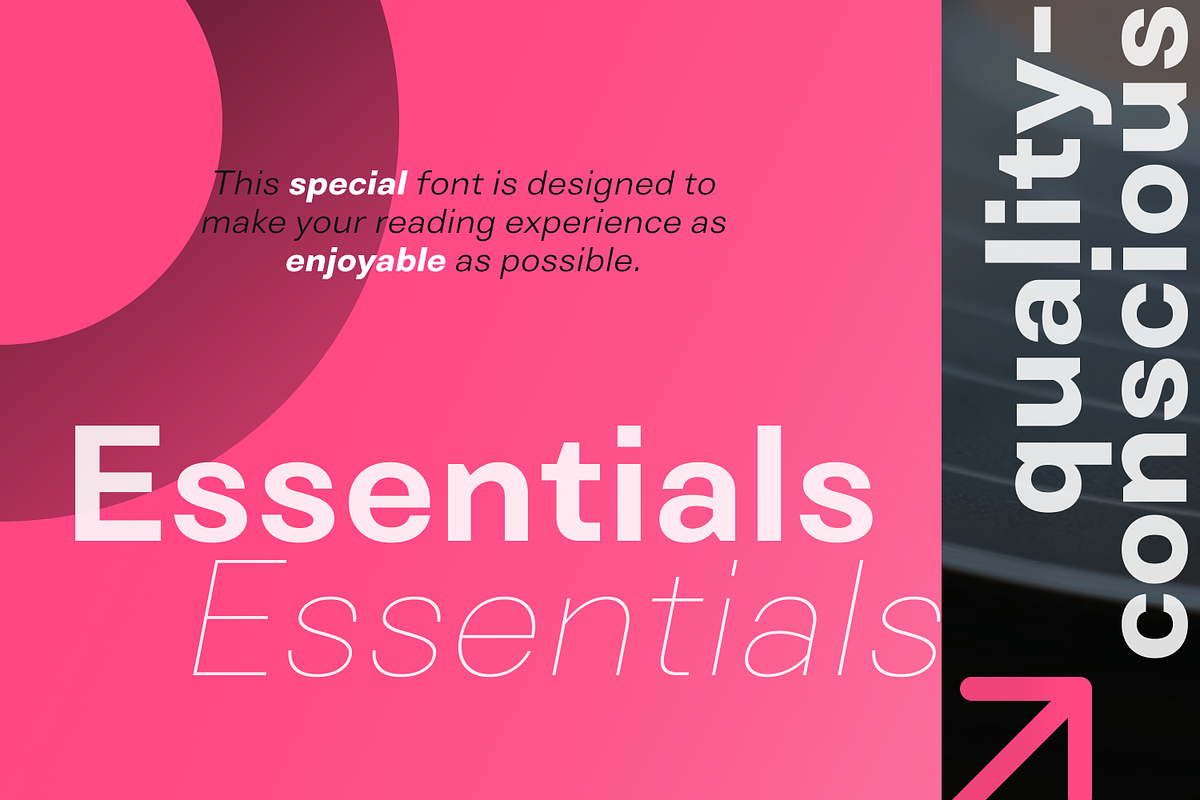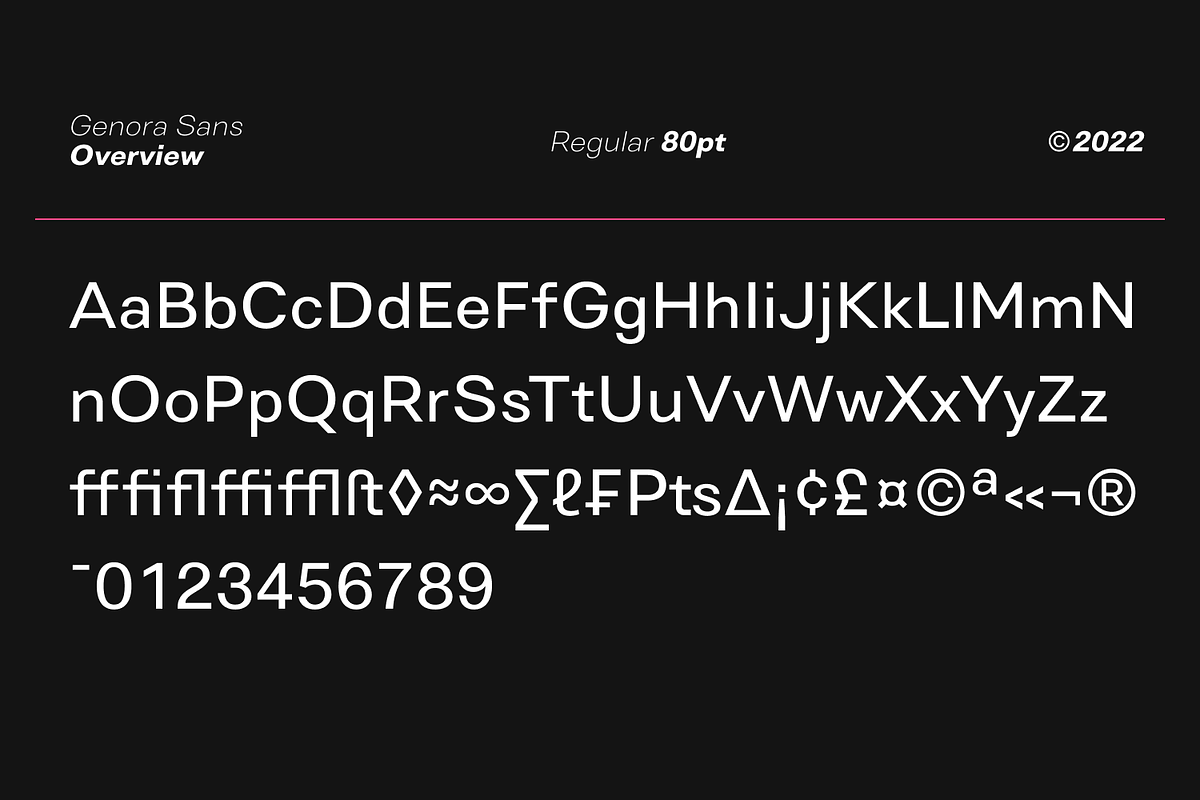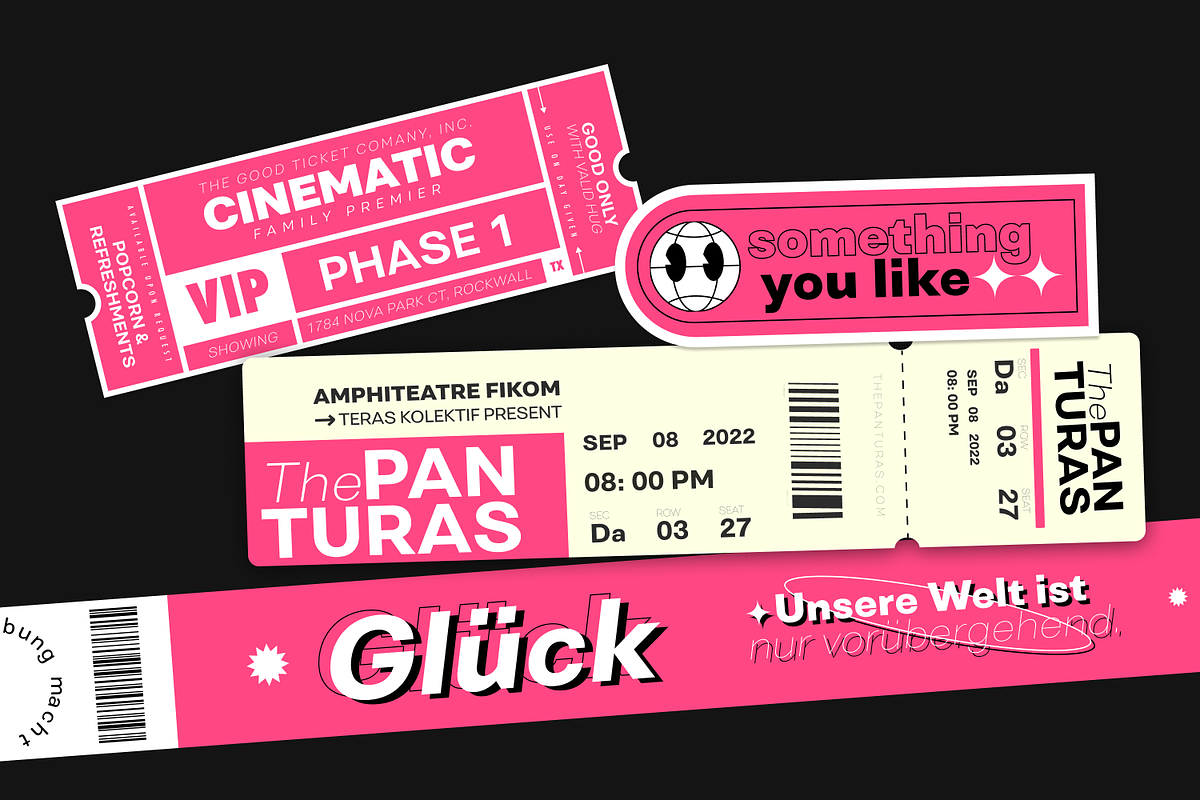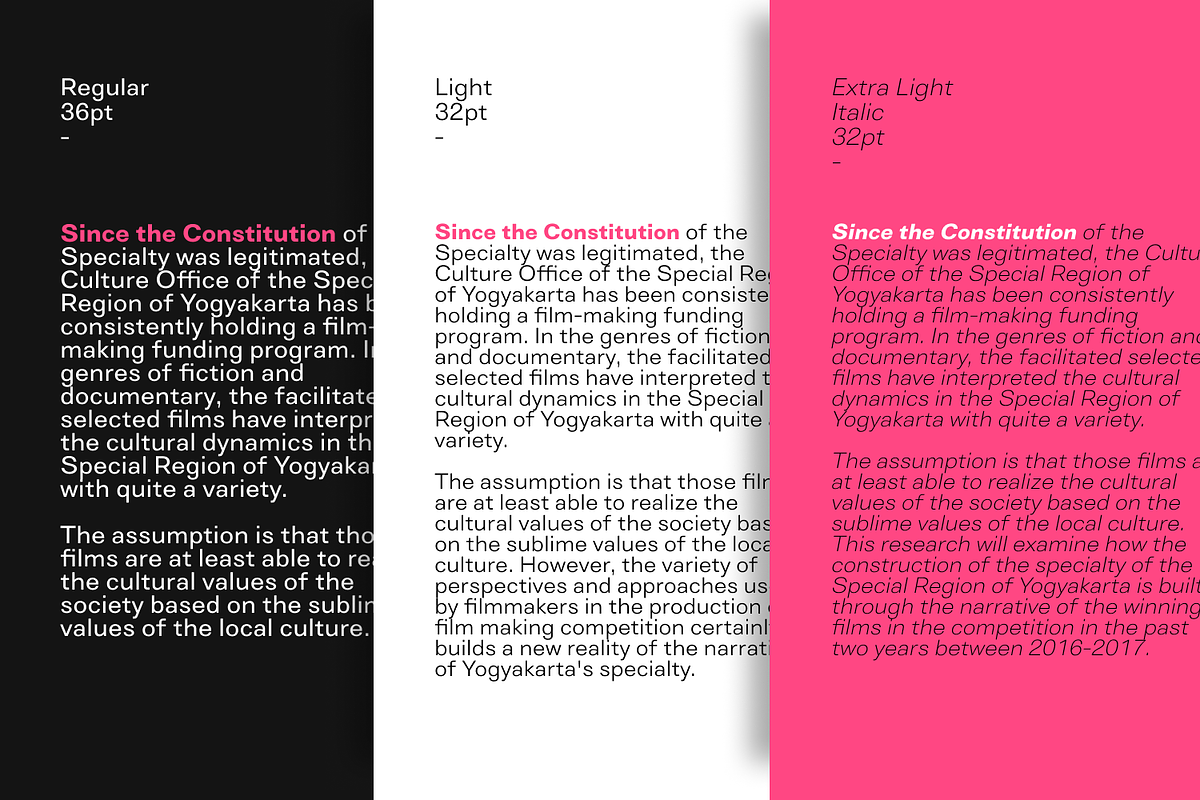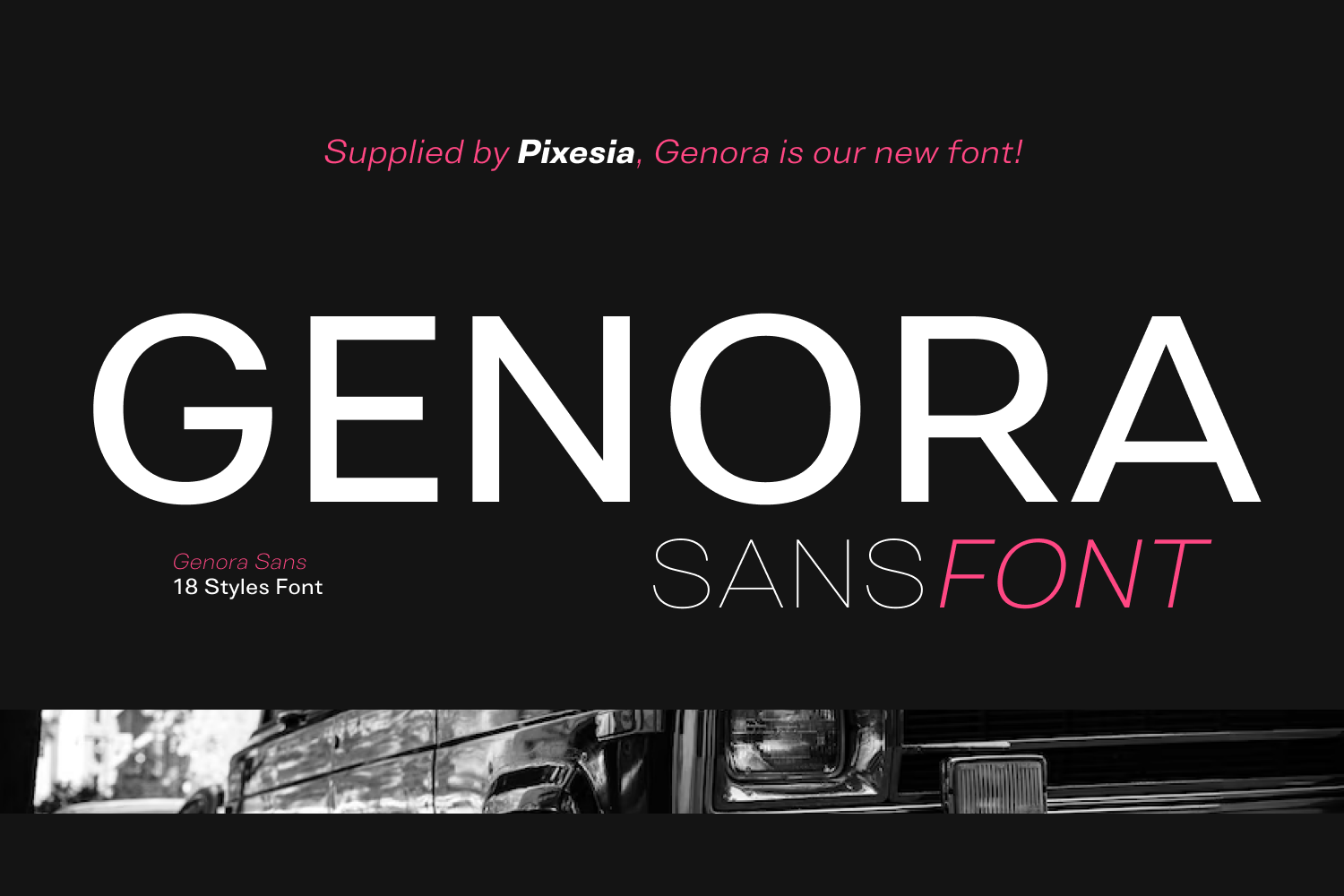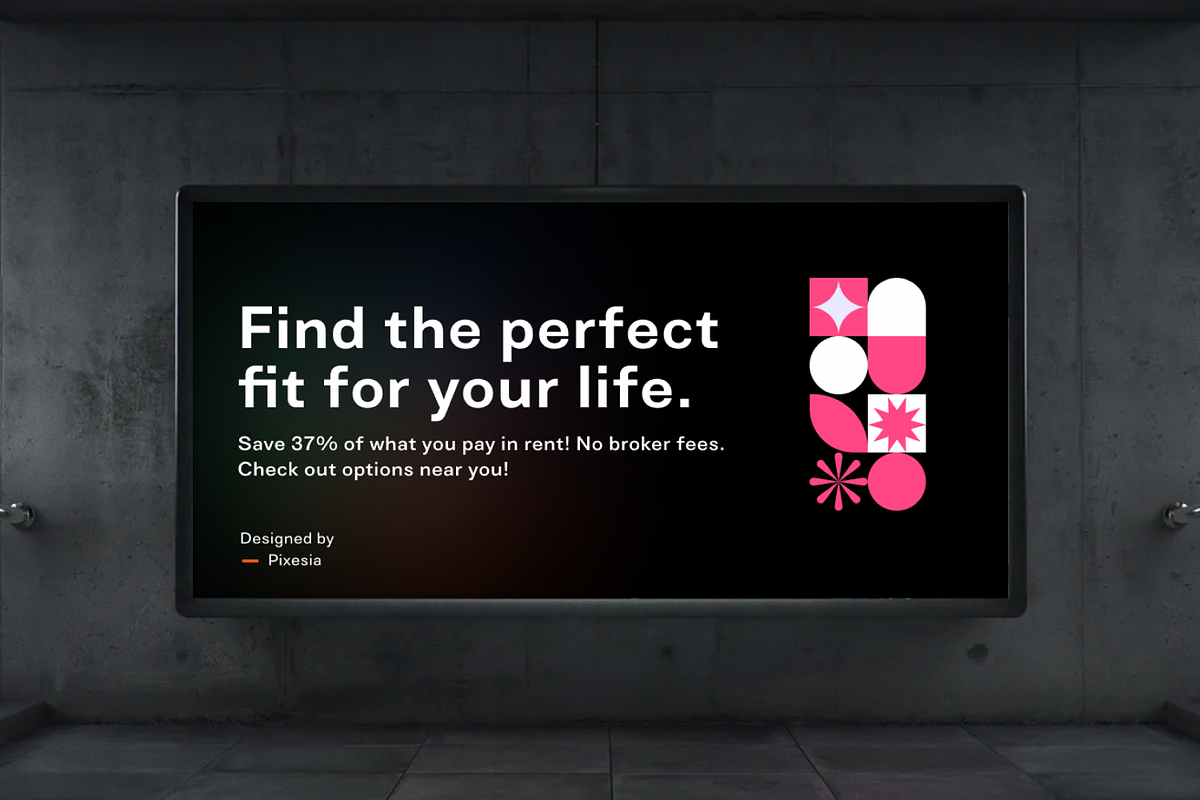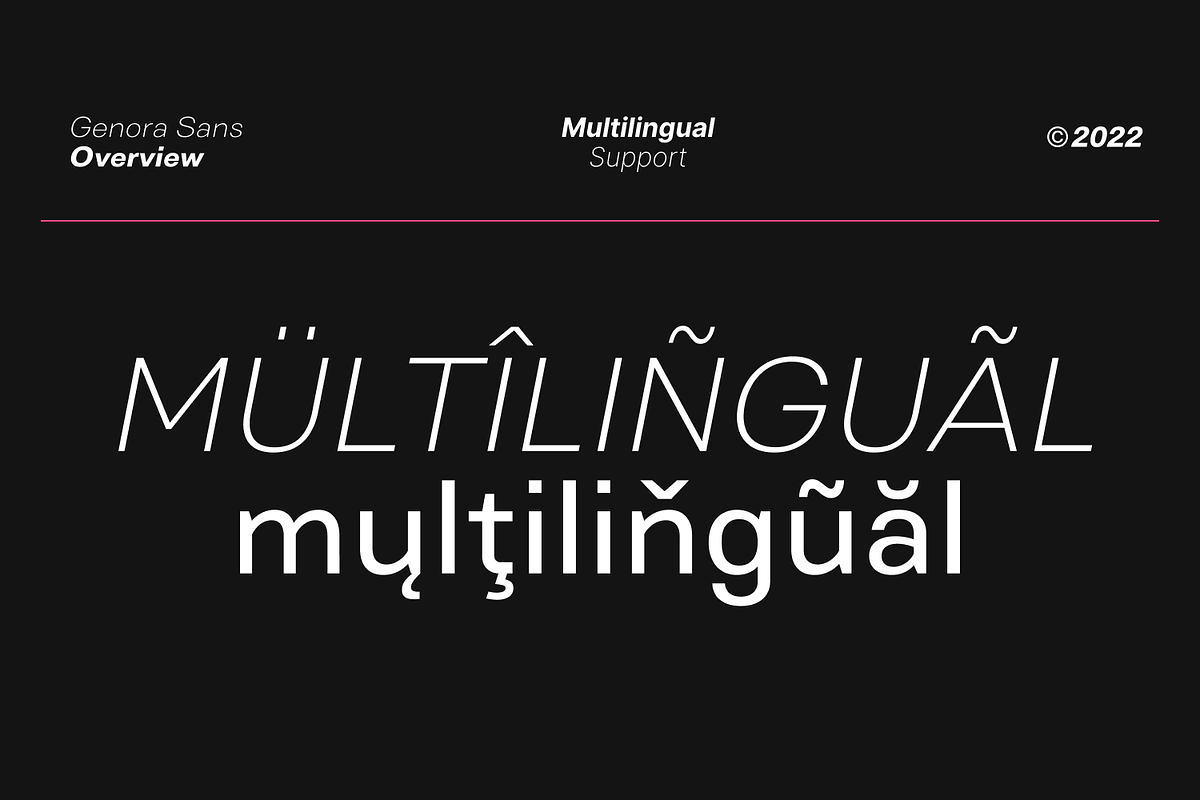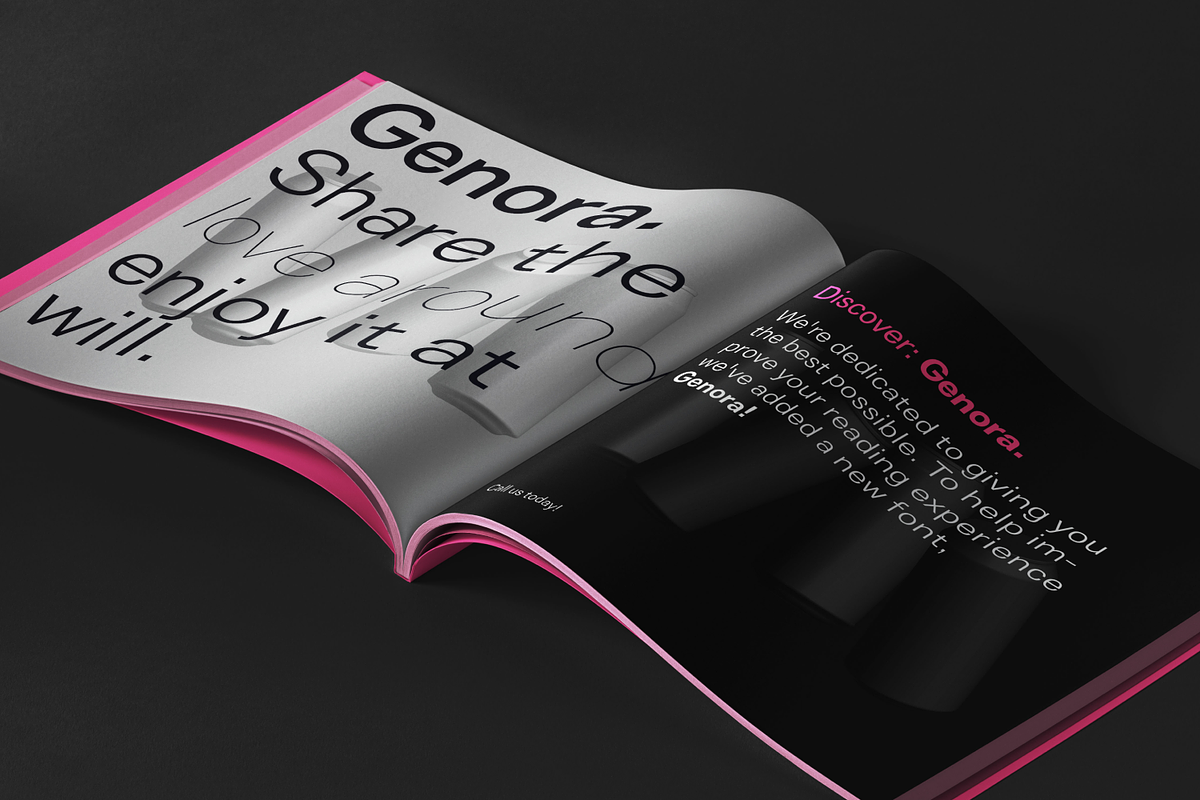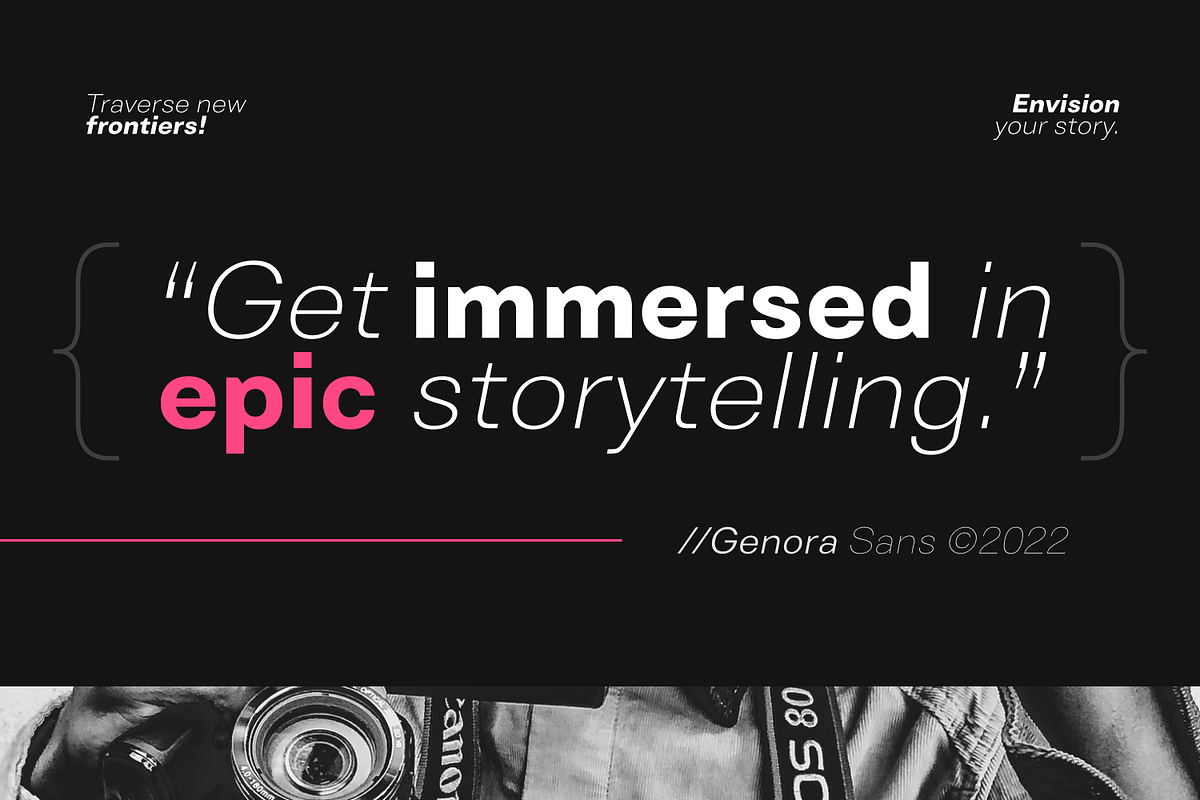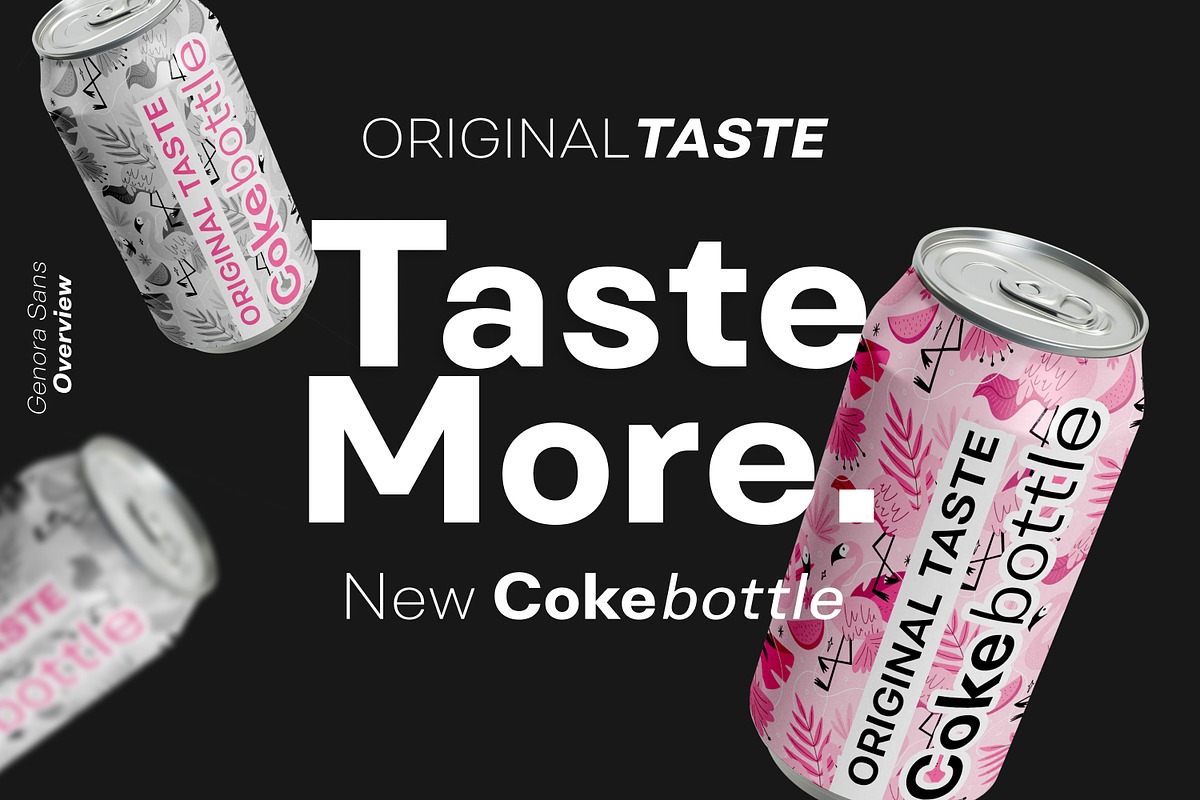
Genora Sans Serif Font Family
Introducing Genora Sans - New Modern Geometric Sans Serif
Genora Sans is a new geometric sans serif font. Genora Sans comes in a modern style featuring 9 weights and 18 styles from Thin to Black, making it easy to adapt to your design. The typeface is ideal for corporate identities, branding, publishing, websites, titles, books, magazines, business cards, logos, product labels, packaging, or any kind of advertising purpose and use on UI/UX design.
- 9 Weight & 18 Style